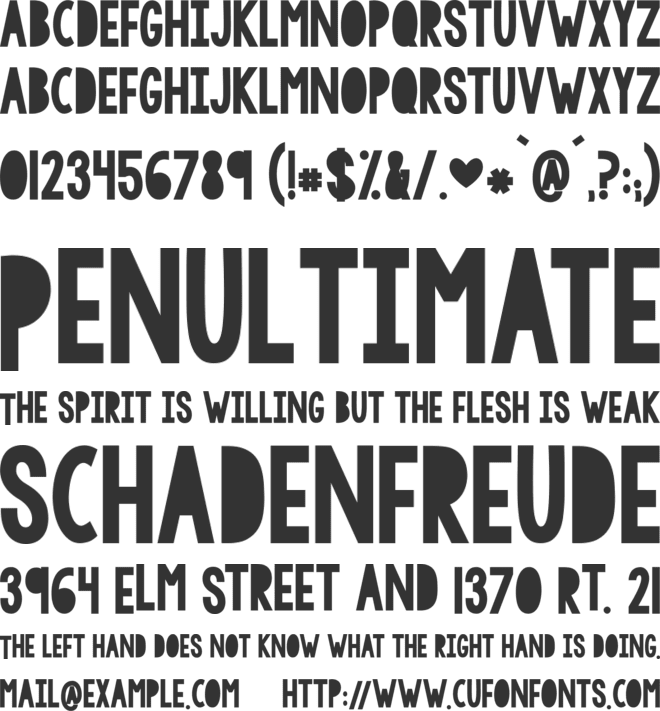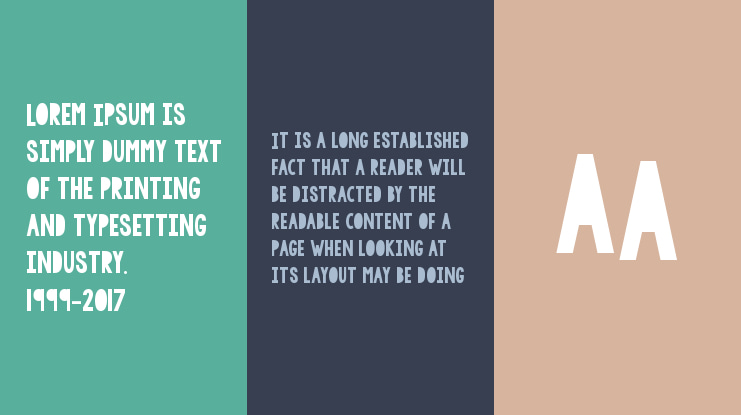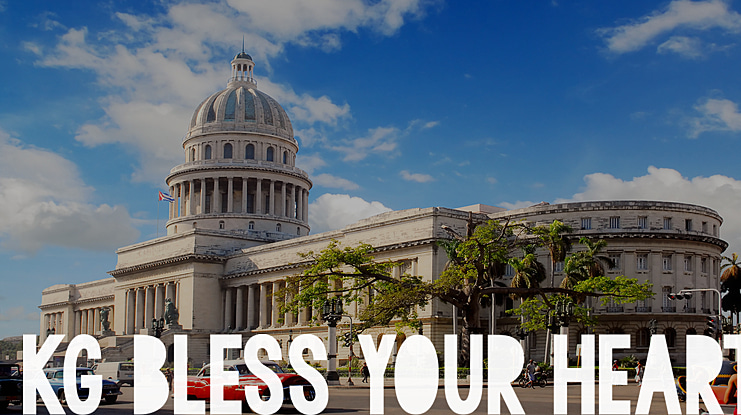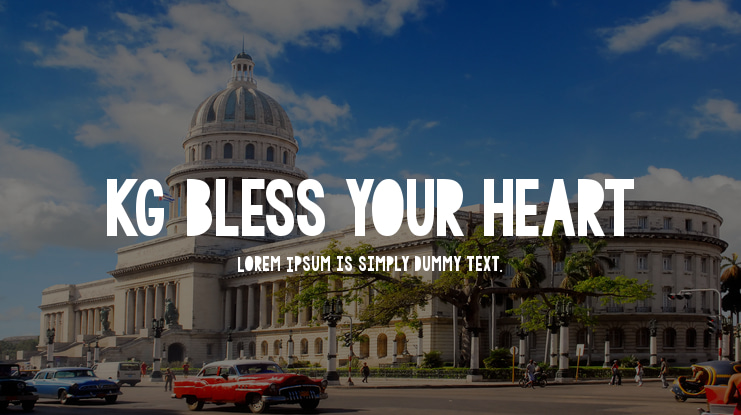
KG BLESS YOUR HEART Font
Kimberly Geswein
A bold, chunky blackout font. Type in all caps for an even line or use lowercase alternated with uppercase for a bouncy line of lettering.